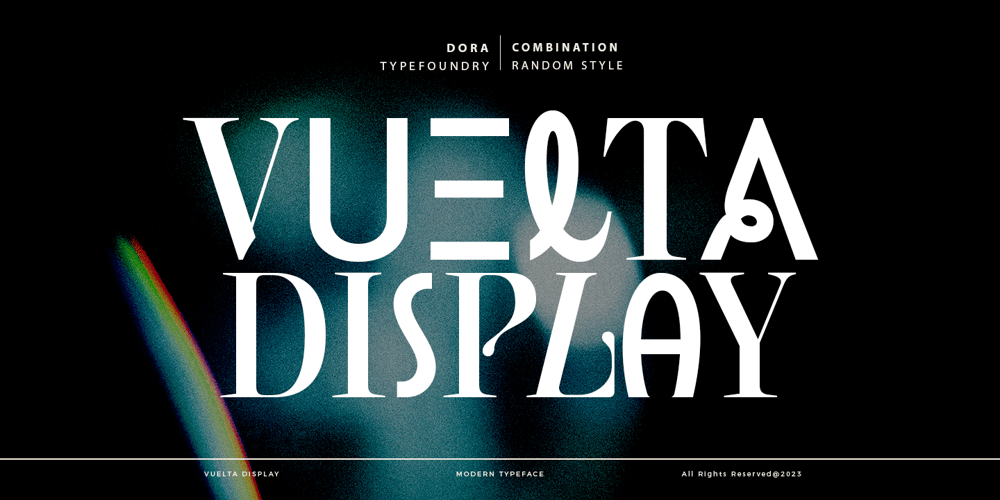
Vuelta
Vuelta font
Vuelta Font Family was designed by Zahratul Laila and published by Dora Typefoundry. Vuelta contains 1 styles and family package options. Vuelta display is a modern random style font that combines serifs and sans in one font file. With serif as uppercase and sans as lowercase. You can use both uppercase and lowercase in the same word which will make your text more distinct too plus some alternatives so this font really stands out. This font is perfectly made to be applied especially in logos, and other various formal forms such as display, header, headline, poster, logos, etc on a big typography.**Features:** – All Caps Font with different uppercase and lowercase – Number & Symbol – Supported Languages – Alternates and Ligatures – PUA Encoded **What is included:** – Vuelta Display RegularWe highly recommend using a program that supports OpenType features and Glyphs panels like Adobe apps and Corel Draw, so you can see and access all Glyph variations.This type of family has become the work of true love, making it as easy and fun as possible.I really hope you enjoy it!Thank you Enjoy the font and go get creative 🙂